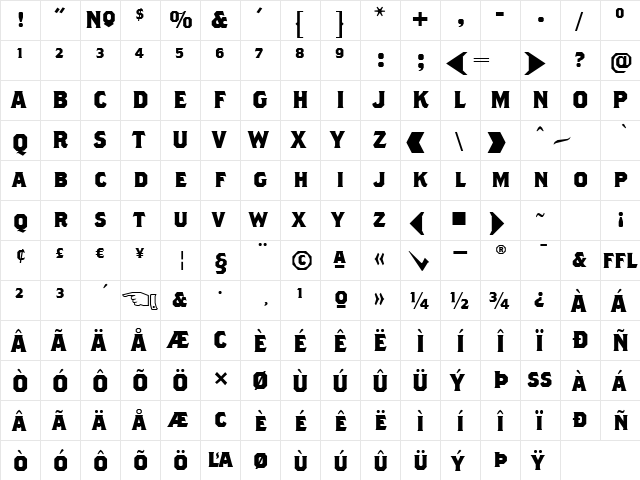
BrothersBoldAlternates Bold
Design Context for BrothersBoldAlternates Typeface
BrothersBoldAlternates offers clean, dependable letterforms without strong stylistic allegiance, making it a practical choice for designers who need flexibility. Its bold stroke weight gives it real presence on the page.